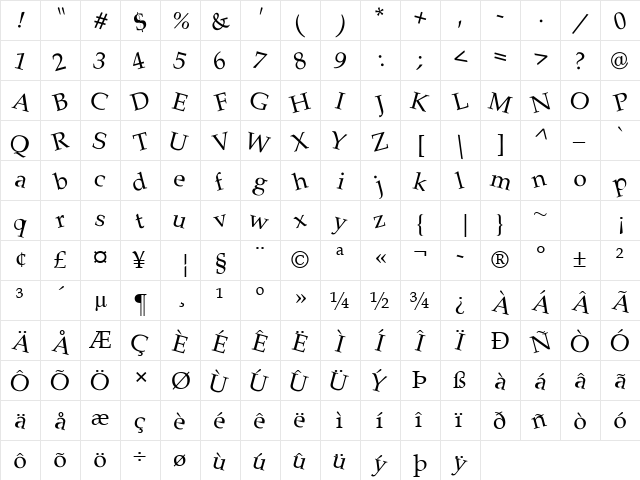
Tipsy Giggles Regular
| Designer | Will Furmanick |
Design Context for Tipsy Giggles Typeface
Tipsy Giggles takes a measured approach to typography — its balanced proportions and neutral character make it a reliable workhorse for both digital and print work.